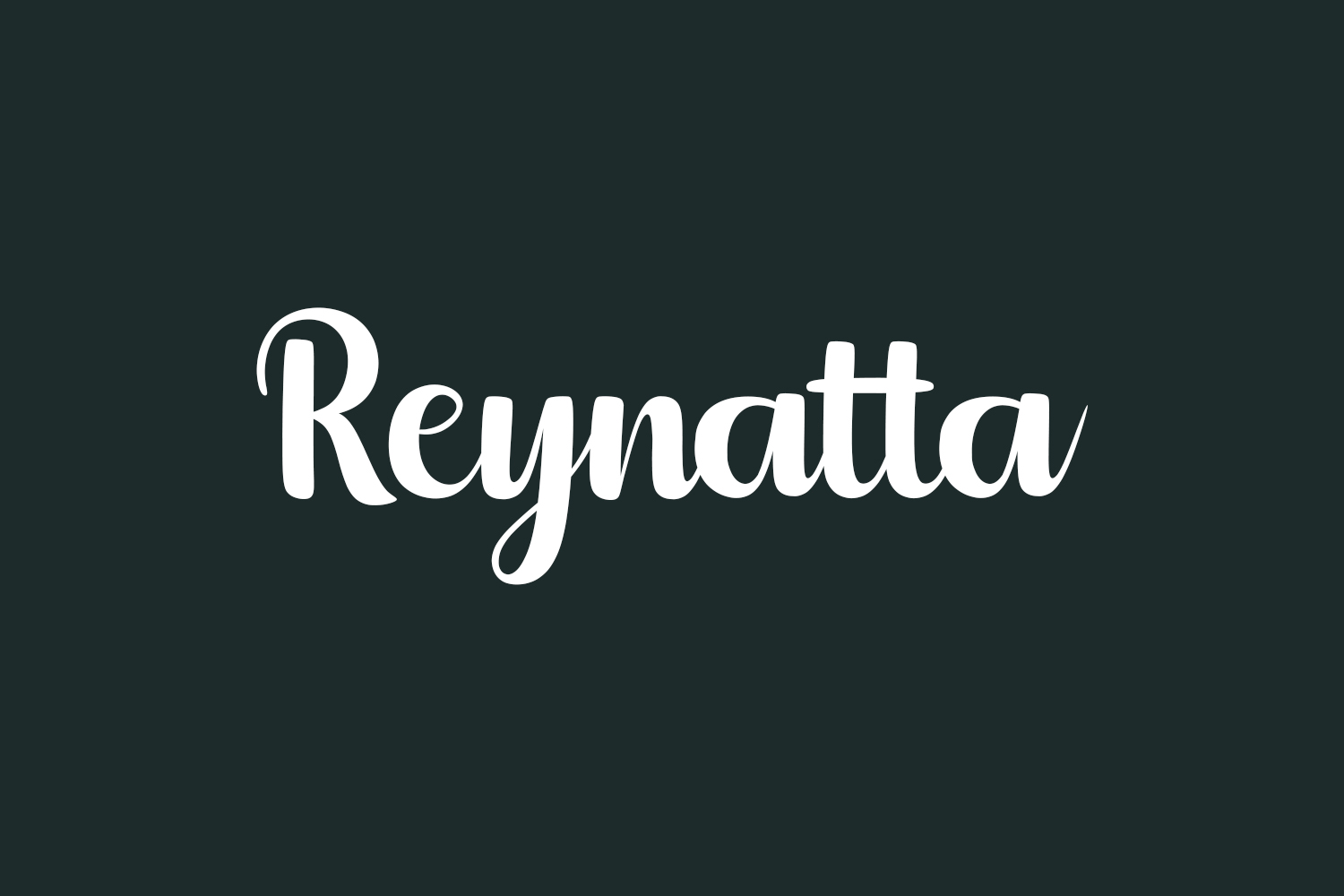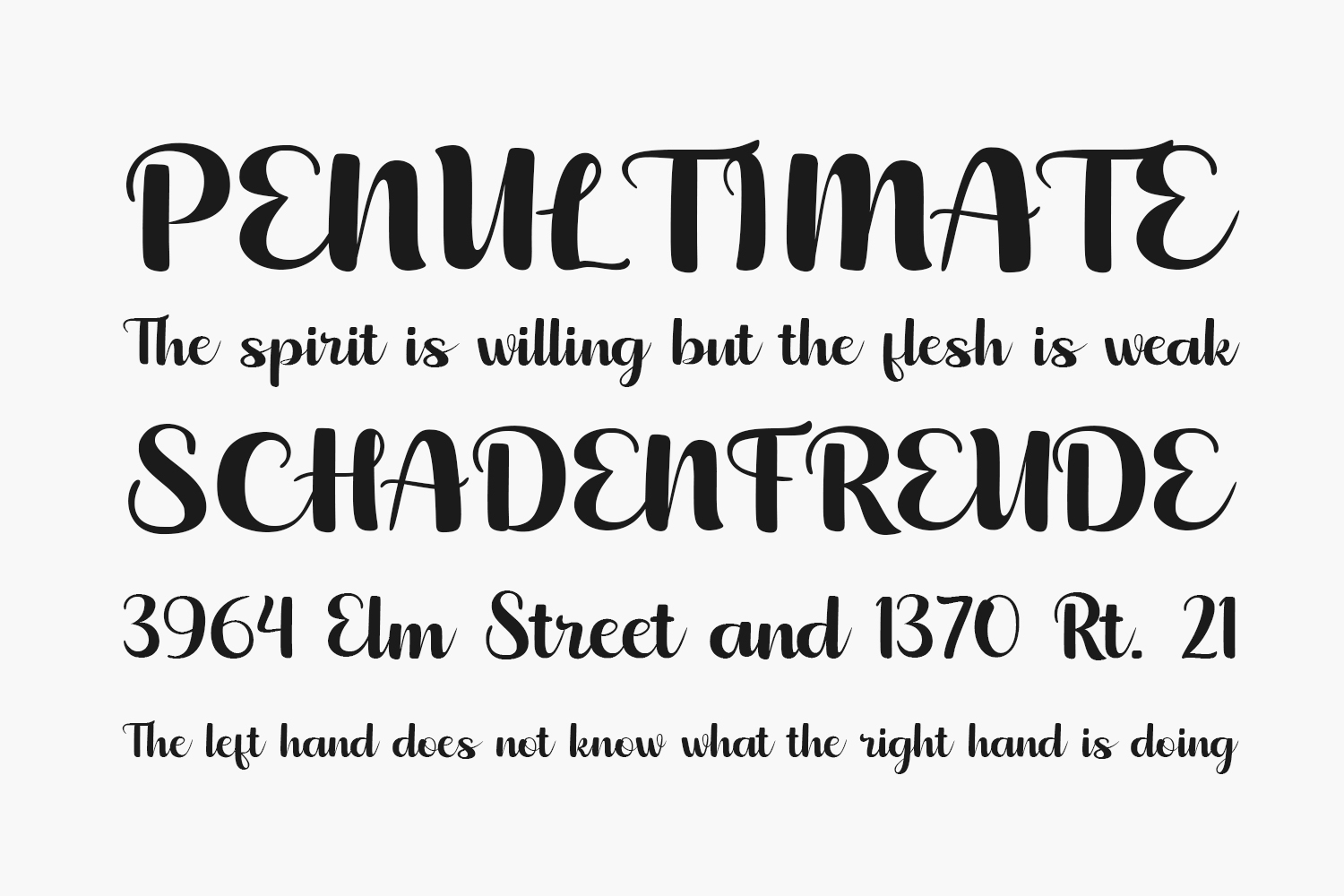
Reynatta Free Font s a stylish and incredibly elegant script font. It looks stunning on wedding invitations, thank you cards, quotes, greeting cards, logos, business cards, and every other design which needs a handwritten touch. Reynatta Free Font was designed by Kurnia Setyadi and is free for personal use only. Please purchase the full version for commercial use.
Designed by Kurnia Setyadi